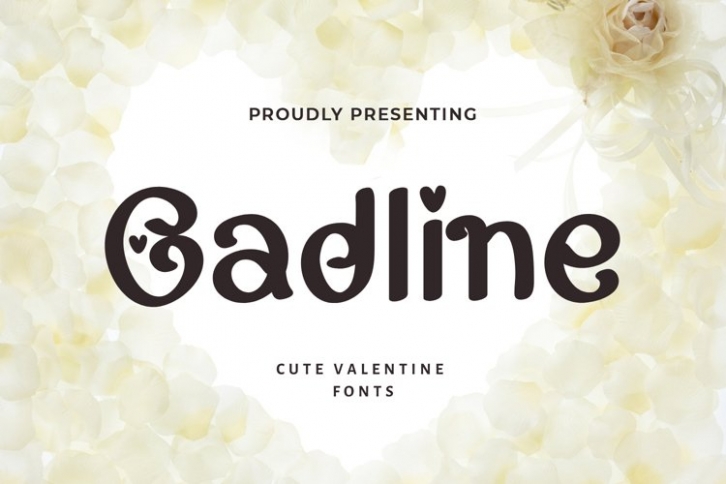
Gadline is a gorgeous font that was realeased on August 1, 2021. The font can be used in many style contexts and design environments. Perfect for invitations, magazines, websites, logos, and more! It was designed by plusstore and the file size is 6.6 MB. Thanks for checking out this font!